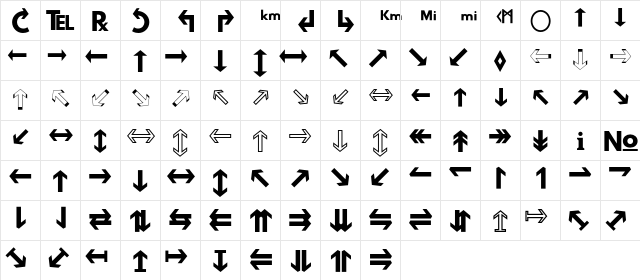
Hussar Motorway Regular
Design Context for Hussar Motorway Typeface
Hussar Motorway offers clean, dependable letterforms without strong stylistic allegiance, making it a practical choice for designers who need flexibility.